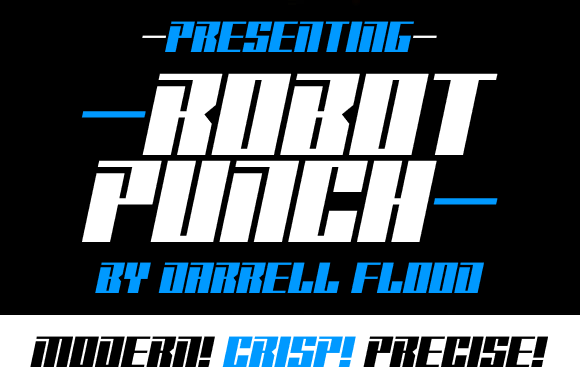
Introduction to Robot Punch Font
A hard hitting robot like font in a slick science fiction style.
Perfect for alien encounters, space exploration, and general high tech themes .
Key Features of Robot Punch Font